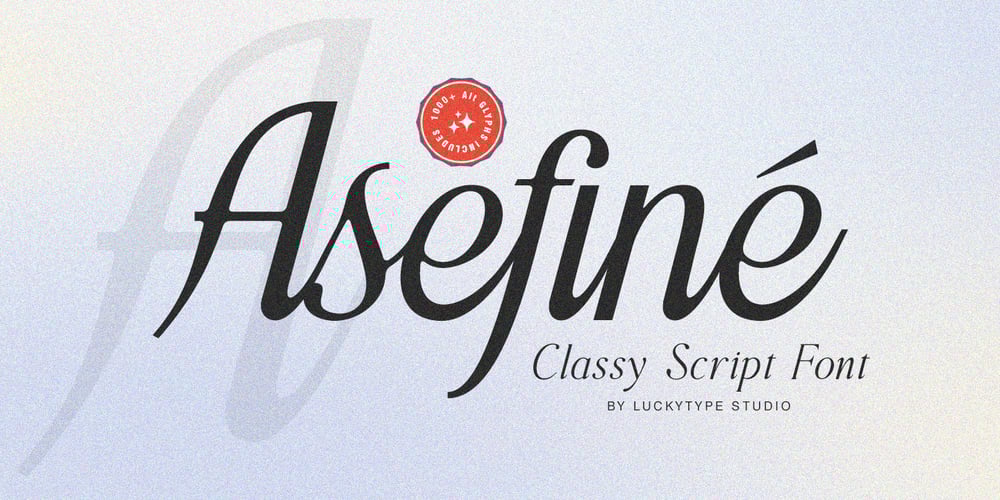
Asefine Font Family was designed by Muhammad Fajar and published by Lucky Type. Asefine contains 1 styles and family package options. Asefine Script is a classy script font that comes with a beautiful classic style. Asefine script has 1200+ glyphs and 1000+ unique alternative characters, including simple latin and pro latin support. Asefine script has a simple and easy to read font style. very suitable for application in various formal forms such as logos, invitations, labels, fashion, restaurant menus, wedding invitations, make up, stationery, novels, magazines, books, packaging, labels or all kinds of other purposes.